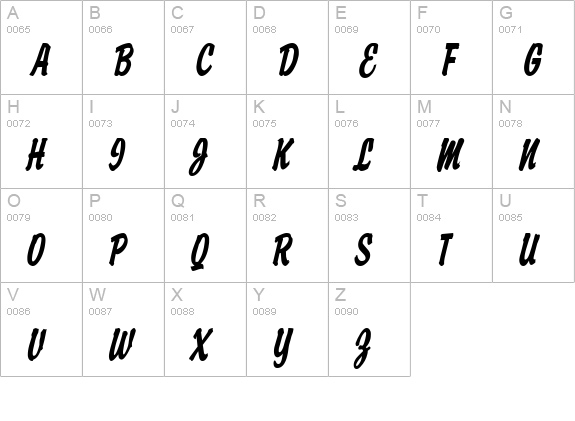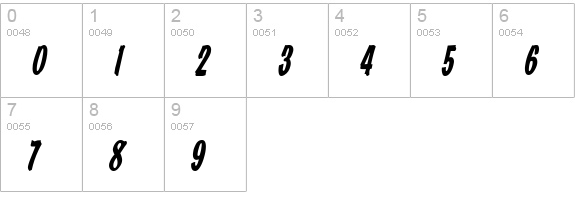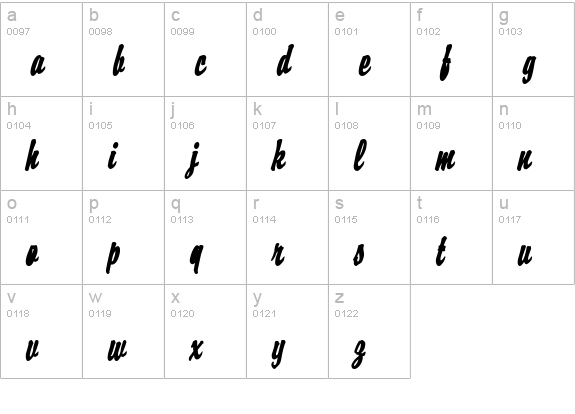
Brisk BoldItalic font is a dynamic and eye-catching typeface that exudes confidence and modernity. Its bold and italic design adds a sense of flair and sophistication to any project it is used in. The sleek lines and stylish curves of Brisk BoldItalic make it a versatile choice for a wide range of design applications, from branding to advertising to editorial design. What sets Brisk BoldItalic apart is not only its striking appearance, but also the fact that it is available for free download at FontsMarket.com. This means that designers and creatives can access this premium quality font without any cost, making it an invaluable resource for projects big and small. Whether you're looking to make a bold statement or add a touch of elegance to your designs, Brisk BoldItalic is the perfect choice. Download it for free today and elevate your creative projects to the next level.